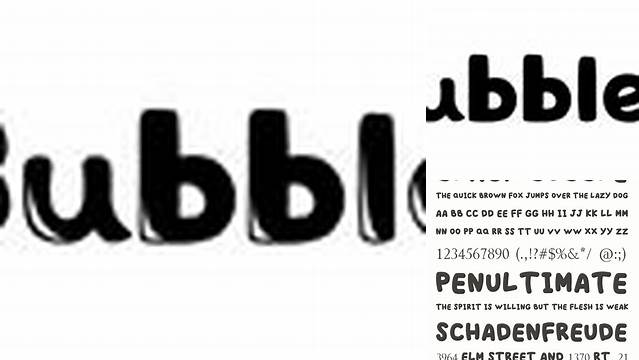
Hey guys! Are you on the lookout for a font that's both eye-catching and versatile? Look no further! The HU Bubble Black font is here to add a playful yet bold touch to your projects. This font, with its rounded edges and substantial weight, is perfect for grabbing attention. Whether you're designing a logo, crafting social media graphics, or even working on a children's book, this font can be a fantastic asset. In this comprehensive guide, we'll delve into the specifics of the HU Bubble Black font, explore its uses, and most importantly, show you how to download it for free. So, let's dive in and unleash your creativity with this unique typeface!
The HU Bubble Black font is characterized by its bold weight and rounded, bubble-like letterforms. This gives it a friendly and approachable feel, making it ideal for projects that need to convey a sense of fun and playfulness. Imagine using it for a children's clothing brand logo, or perhaps for the title of a YouTube video aimed at a younger audience. The possibilities are endless! But what truly sets this font apart is its versatility. While it excels in informal and creative contexts, it can also be used effectively in more professional settings, especially when you need to add a touch of personality without sacrificing readability. For instance, you could use it for headings on a website or in a presentation to make key information stand out. And guess what? The boldness of the font ensures it remains legible even at smaller sizes, making it a practical choice for various design applications. The unique character of the HU Bubble Black font makes it a powerful tool for branding. It can help your brand stand out from the crowd and create a memorable impression on your audience. The rounded shapes evoke feelings of warmth and friendliness, which can be particularly valuable for businesses that want to build strong relationships with their customers. So, if you're looking for a font that's both visually appealing and emotionally engaging, the HU Bubble Black font might just be the perfect choice for you. Remember, great typography is the cornerstone of good design, and this font offers a fantastic way to elevate your projects.
Key Features of HU Bubble Black Font
So, what exactly makes the HU Bubble Black font so special? Let's break down its key features to understand its appeal. First and foremost, the font's bold weight is a defining characteristic. This means that each letter is thick and substantial, which not only makes the font highly visible but also gives it a strong presence on the page or screen. This is crucial for headlines, titles, and any text that you want to immediately grab the reader's attention. The bold weight ensures that your message is delivered with impact. Now, let's talk about the rounded letterforms. Unlike fonts with sharp edges and angles, the HU Bubble Black font features soft, rounded shapes. This gives it a friendly, approachable, and even playful vibe. Think of it as the typographic equivalent of a warm hug! This makes it ideal for designs that need to convey a sense of fun, creativity, or informality. Imagine using it for a birthday party invitation, a children's book cover, or a logo for a toy store. The rounded shapes instantly evoke a sense of joy and lightheartedness. But there's more to it than just aesthetics. The rounded letterforms also contribute to the font's readability. The absence of sharp edges makes the letters easier on the eyes, especially when reading large blocks of text. This is a significant advantage, as you want your message to be not only visually appealing but also easy to digest. Another important feature is the font's versatility. Despite its distinctive style, the HU Bubble Black font can be used in a wide range of applications. As we mentioned earlier, it's great for creative projects, but it can also be used effectively in more professional contexts. For instance, it can add a touch of personality to a business presentation or a website design without compromising on clarity or professionalism. This versatility makes it a valuable addition to any designer's toolkit.
Exploring the Versatility of HU Bubble Black
The versatility of the HU Bubble Black font is one of its most compelling attributes. It's not just a one-trick pony; this font can adapt to a wide range of design needs, making it a valuable asset for any creative project. Let's dive deeper into the various ways you can use this font to its full potential. In the realm of branding, the HU Bubble Black font can be a game-changer. Its unique personality can help your brand stand out from the competition and create a memorable impression on your target audience. Think about using it for your logo, your website headings, or even your social media graphics. The bold, rounded letterforms convey a sense of friendliness and approachability, which can be particularly beneficial for businesses that want to build strong relationships with their customers. For instance, a coffee shop could use this font to create a warm and inviting atmosphere, while a children's clothing brand could use it to emphasize the playful nature of their products. Beyond branding, the HU Bubble Black font excels in marketing materials. Whether you're designing flyers, posters, brochures, or social media ads, this font can help you grab attention and communicate your message effectively. The bold weight ensures that your text is easily readable, even from a distance, while the rounded letterforms add a touch of personality and visual interest. Imagine using it for a sale announcement, a product launch, or an event promotion. The font's playful nature can make your marketing materials more engaging and memorable. But the versatility doesn't stop there. The HU Bubble Black font is also a great choice for creative projects of all kinds. If you're designing a birthday card, a wedding invitation, or a scrapbook page, this font can add a touch of fun and whimsy. The rounded letterforms are perfect for expressing joy and celebration. You can also use it for personal projects like journals, planners, and to-do lists. The font's readability makes it a practical choice for everyday use. Ultimately, the versatility of the HU Bubble Black font lies in its ability to strike a balance between boldness and friendliness. It's a font that can command attention without being intimidating, making it a perfect choice for a wide range of design applications.
Tips for Using HU Bubble Black Effectively
So, you've got the HU Bubble Black font installed and you're eager to use it. That's awesome! But before you go wild, let's talk about some tips for using this font effectively. Like any design element, typography needs to be used thoughtfully to achieve the best results. The HU Bubble Black font, with its unique personality, is no exception. Here are some tips to help you make the most of this fun and versatile typeface. First and foremost, consider the context. The HU Bubble Black font is best suited for projects that require a friendly, playful, or informal touch. It's perfect for designs aimed at children, creative businesses, or anything that needs a bit of whimsy. Think about using it for logos, headings, posters, invitations, or social media graphics. However, it might not be the best choice for more serious or formal applications, such as legal documents or academic papers. Now, let's talk about contrast. The HU Bubble Black font is bold and eye-catching, so it's essential to pair it with a complementary font that provides contrast. A simple, clean sans-serif font like Open Sans or Lato can work well as a body text font. This will create a visual hierarchy and make your design more readable. Avoid pairing HU Bubble Black with other overly decorative fonts, as this can create a cluttered and overwhelming look. Another important tip is to use the font sparingly. While it's tempting to use HU Bubble Black for everything, it's often more effective to use it as an accent font. Use it for headings, titles, or short bursts of text to draw attention to key elements. Overusing the font can dilute its impact and make your design look less polished. Think of it as adding a sprinkle of fun rather than dousing your entire design in it. Kerning and tracking are your friends! Pay attention to the spacing between letters (kerning) and the overall spacing of the text (tracking). The HU Bubble Black font has a unique shape, so it might require some adjustments to ensure optimal readability. Use your design software's kerning and tracking tools to fine-tune the spacing and create a visually pleasing result. And finally, don't be afraid to experiment! Typography is a creative process, so have fun and try different combinations. The HU Bubble Black font is a versatile tool, and there are many ways to use it effectively. Play around with different sizes, colors, and placements to discover what works best for your project. With a little experimentation, you can create stunning designs that showcase the unique charm of this font.
Alternatives to HU Bubble Black Font
Okay, so the HU Bubble Black font is pretty awesome, but maybe you're looking for something slightly different. Or perhaps you want to explore some similar fonts to add variety to your design toolkit. No problem! There are plenty of alternatives out there that offer a similar playful and bold aesthetic. Let's dive into some great options that you can consider. First up, we have Luckiest Guy. This font, available on Google Fonts, is a classic choice for a bold, hand-drawn feel. It's a sans-serif font with rounded edges and a slightly irregular shape, giving it a fun and approachable vibe. Luckiest Guy is perfect for headlines, posters, and designs that need a touch of retro charm. Think about using it for a vintage-inspired logo or a quirky event invitation. Another fantastic option is Bubblegum Sans. As the name suggests, this font is all about bubble-like shapes and playful curves. It's a sans-serif font with a rounded, almost cartoonish appearance. Bubblegum Sans is ideal for children's books, birthday cards, or anything that needs a dose of lightheartedness. Its cheerful personality can instantly brighten up any design. If you're looking for a font that's a bit more geometric, consider Bangers. This font, also available on Google Fonts, is a bold sans-serif with a slightly condensed shape. It has a retro comic book feel, making it perfect for designs that need a sense of energy and excitement. Bangers is great for posters, flyers, and social media graphics. Its strong presence ensures that your message will grab attention. For a more modern take on the bubble font style, check out Patrick Hand. This font, another gem from Google Fonts, is a handwritten-style font with rounded letterforms. It has a casual and friendly feel, making it ideal for blog headers, website headings, or personal projects. Patrick Hand's natural, hand-drawn look adds a personal touch to your designs. And let's not forget Fredoka One. This font is a rounded sans-serif with a slightly condensed shape and a bold weight. It has a playful and modern feel, making it a versatile choice for a wide range of applications. Fredoka One is great for logos, websites, and marketing materials. Its clean and friendly appearance makes it a popular choice among designers. These are just a few of the many alternatives to the HU Bubble Black font. By exploring different options, you can find the perfect typeface to match your unique design needs and creative vision. So, go ahead and experiment with these fonts and see what you can create!
In conclusion, the HU Bubble Black font is a fantastic choice for anyone looking to add a touch of fun and boldness to their designs. Its rounded letterforms and substantial weight make it a versatile option for a wide range of projects, from branding and marketing to creative endeavors. Whether you're designing a logo, crafting social media graphics, or working on a children's book, this font can help you grab attention and communicate your message effectively. We've explored the key features of the font, discussed its versatility, and provided tips for using it effectively. We've also shown you where to find free downloads and offered a step-by-step guide to installation. And if you're looking for alternatives, we've shared some great options to consider. The world of typography is vast and exciting, and the HU Bubble Black font is just one small piece of the puzzle. By experimenting with different fonts and learning how to use them effectively, you can elevate your designs and create visually stunning results. So, go ahead and embrace the fun with the HU Bubble Black font and let your creativity shine! Remember, design is all about expressing yourself and communicating your ideas in a visually appealing way. The HU Bubble Black font is a powerful tool that can help you do just that. Whether you're a professional designer or a hobbyist, this font can add a touch of personality and playfulness to your projects. So, download it, install it, and start creating something amazing! And don't forget to share your creations with the world. We'd love to see how you're using the HU Bubble Black font to bring your ideas to life. Happy designing, guys!